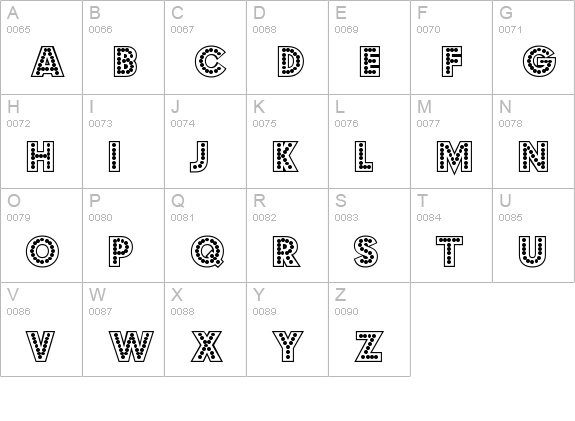
Budmo Jigglish Font Details
Budmo Jigglish font is a lively and playful typeface that brings a whimsical touch to any design project. With its quirky and unique letterforms, Budmo Jigglish adds a fun and cheerful vibe to your text. This font is perfect for creating eye-catching headlines, posters, invitations, and more. The best part? Budmo Jigglish font is available for free download at FontsMarket.com. Simply visit the website to get your hands on this delightful font and start incorporating its charm into your creative work today. Let your imagination run wild with Budmo Jigglish and watch your designs come to life with a touch of fun and personality.